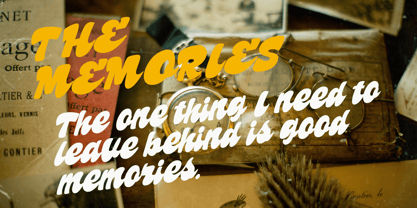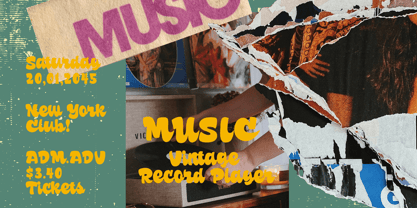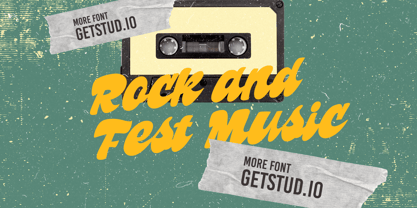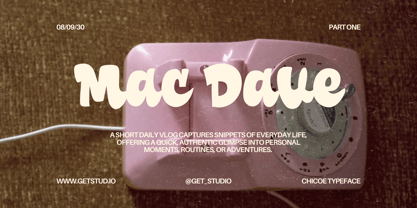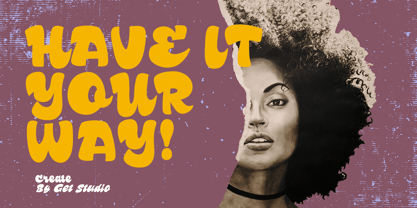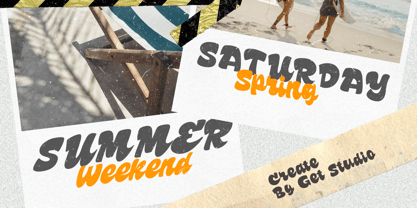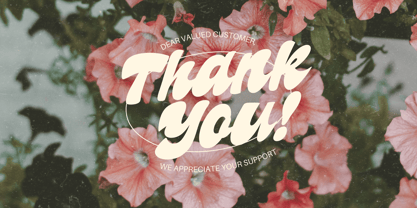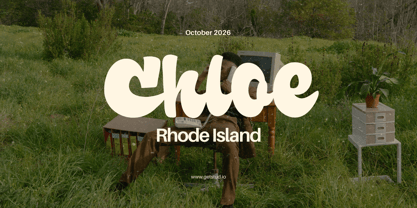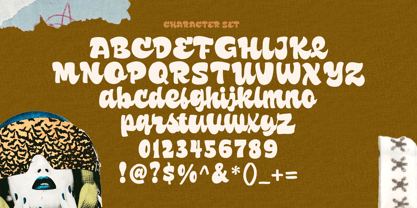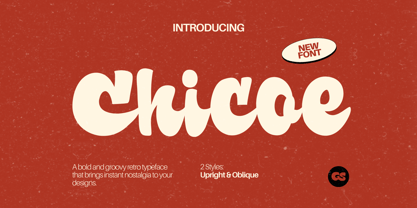
Chicoe
by Get Studio
The Chicoe Font Family was designed by Hermansyah and published by Get Studio. Chicoe contains 2 styles and family package options. More about this family
Meet Chicoe Typeface, a bold and groovy retro typeface that brings instant nostalgia to your designs. With its chunky curves and playful flow, Chicoe captures the fun spirit of the 70s while keeping a modern edge. Perfect for headlines, packaging, posters, and branding projects, this font gives your work a vibrant and eye-catching personality.
Whether you’re creating vintage-inspired artwork, playful quotes, or standout logos, Chicoe will make your design feel bold, funky, and full of charm. Its smooth rounded shapes and bubble-like style are designed to stand out and spread good vibes everywhere it’s used.